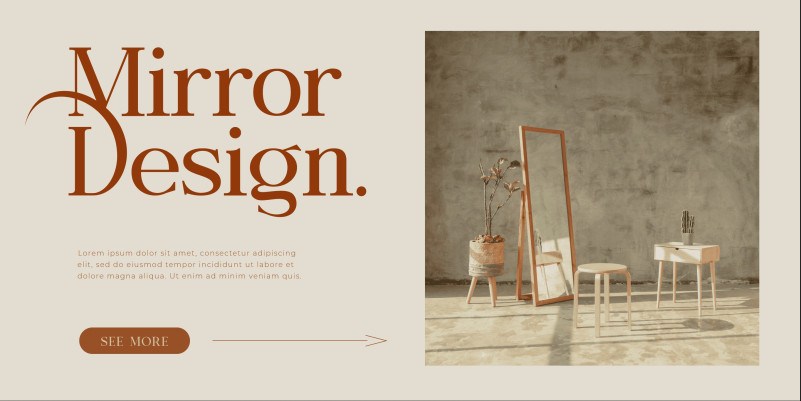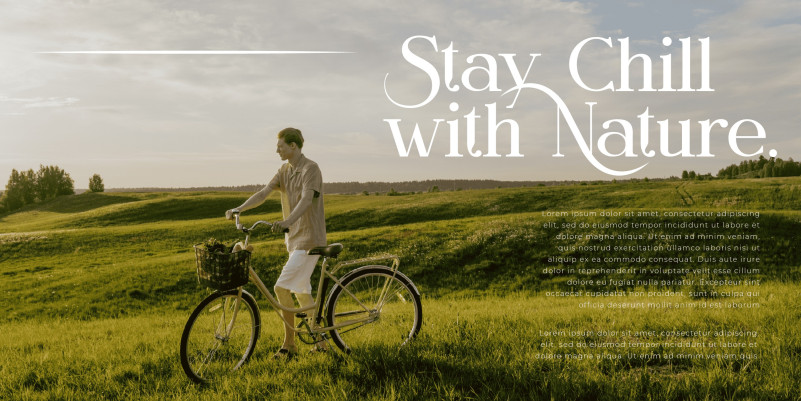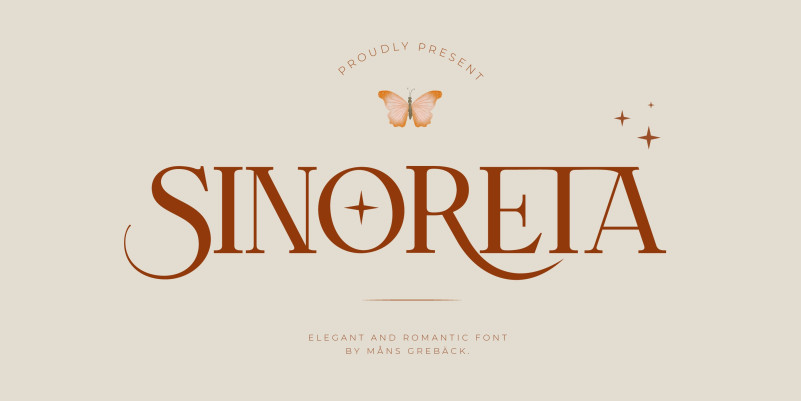
SINORETA Typeface
Sinoreta Serif Font, is a work of art. It has a delicate, yet bold and confident style. Its graceful curves and swirls give it a modern and luxurious look. Its intricate details and exquisite lines make it a perfect choice for adding a touch of sophistication to any design.